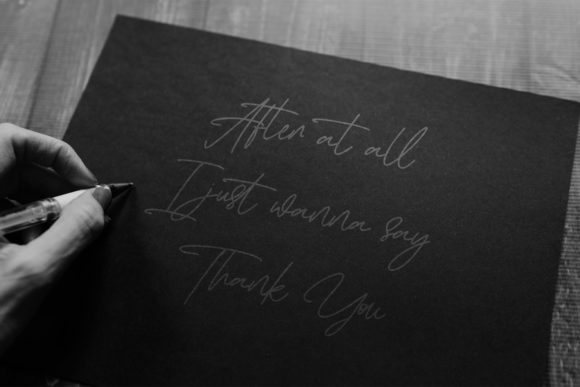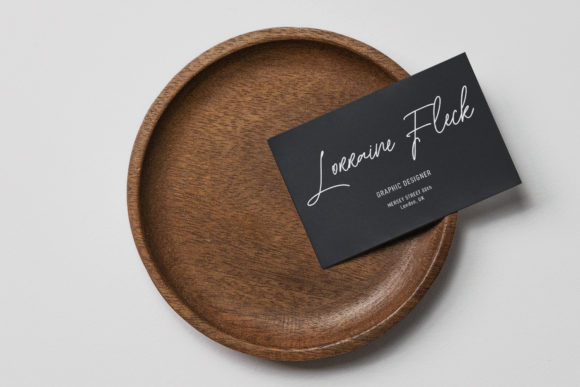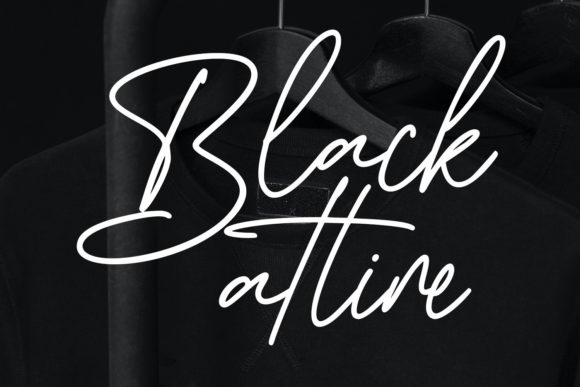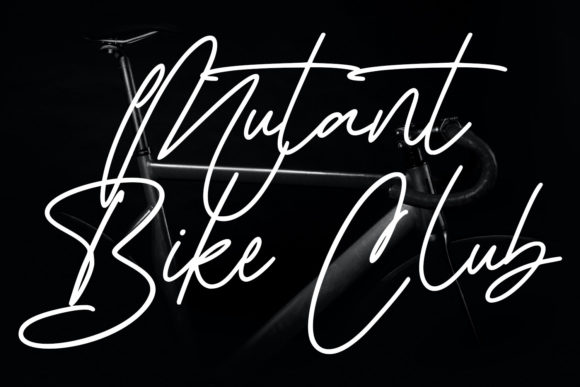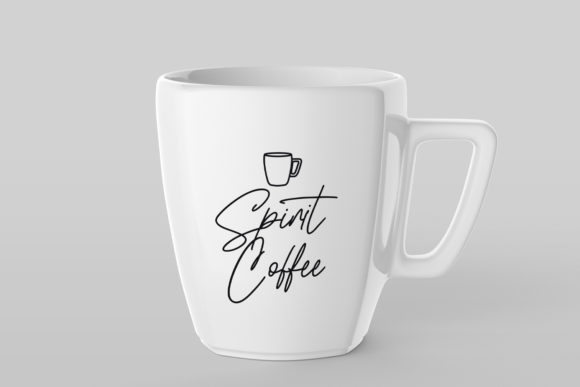
Ironhartley Script Font
About Ironhartley Script Font
Ironhartley Script is a stylish script font. Fall for its ravishing style and use it to create gorgeous wedding invitations, beautiful stationary art, eye-catching social media posts, and much more!